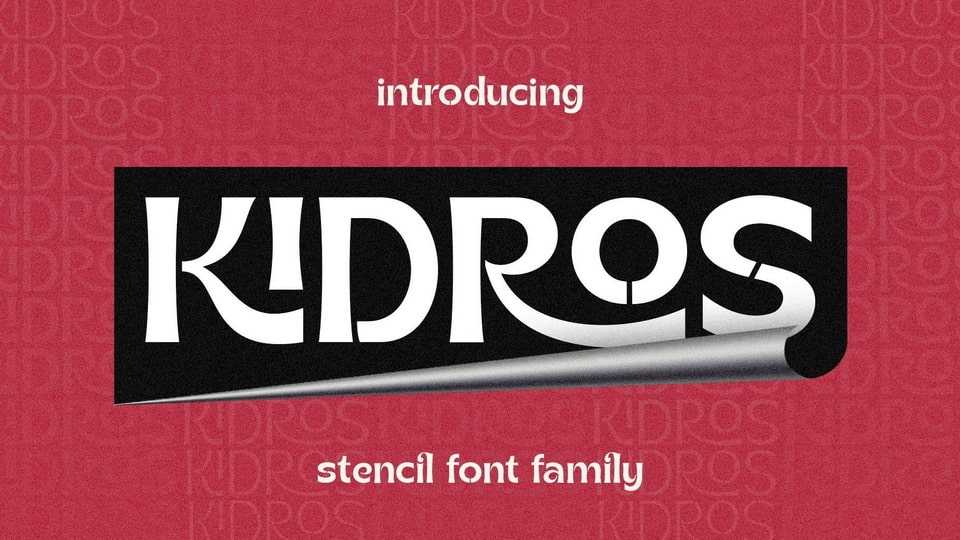
Download Kidros font, a display typeface designed with a sans serif concept that has a retro display stencil style. Irregular dynamic shapes but impressively regular and unique make the Kidros different and steal attention.